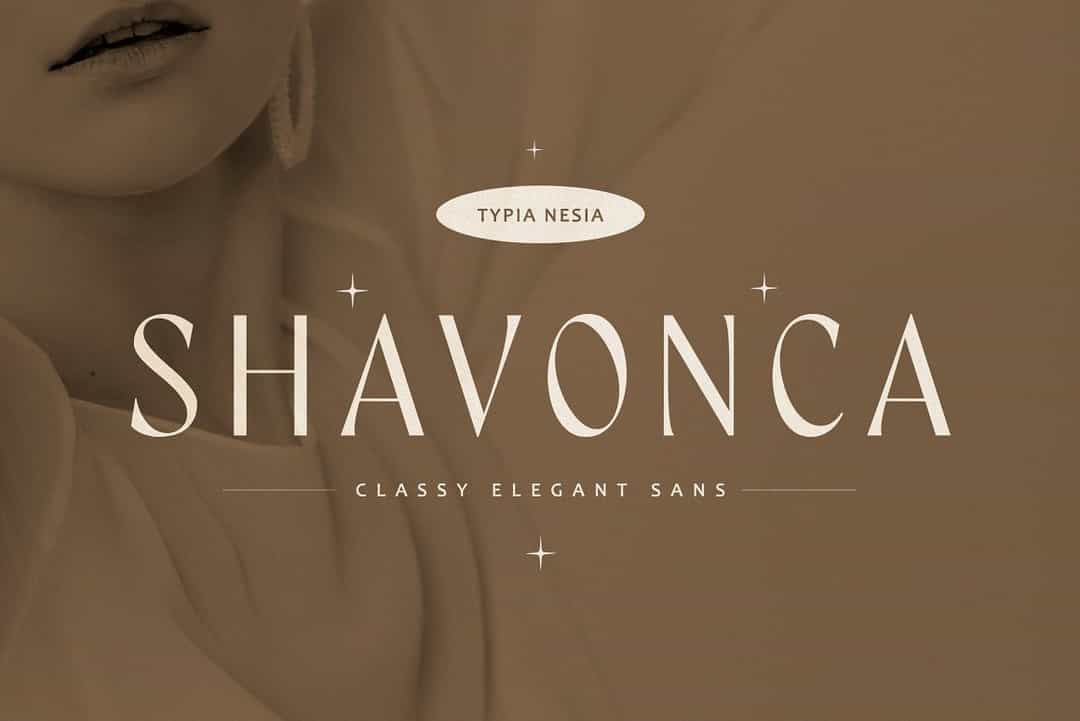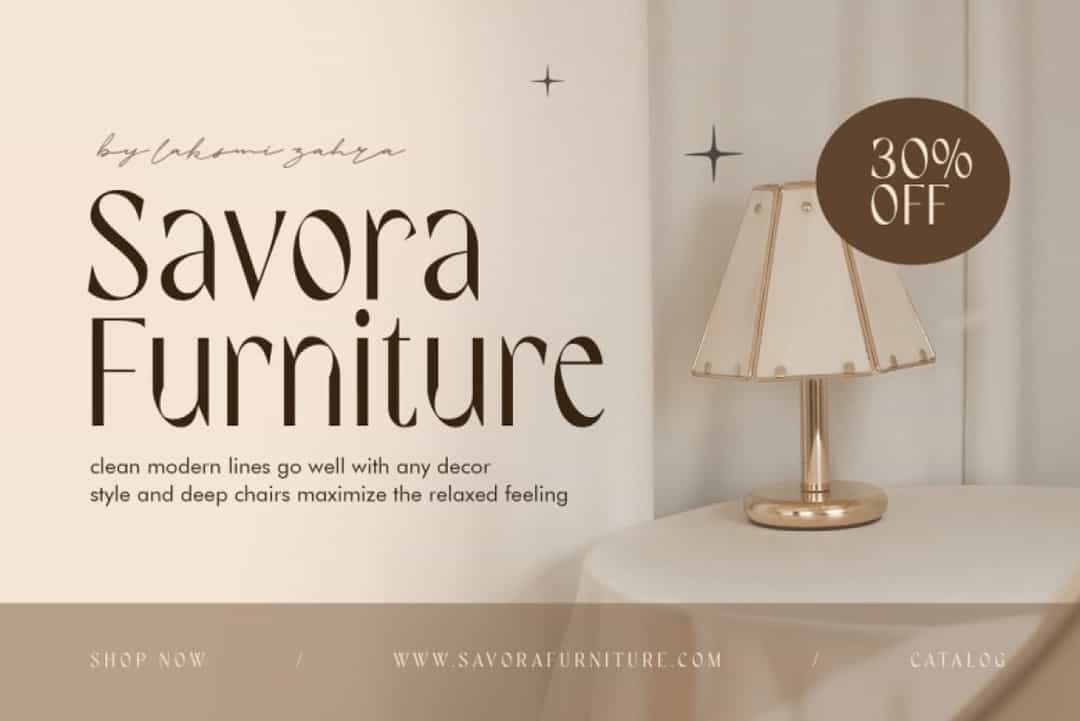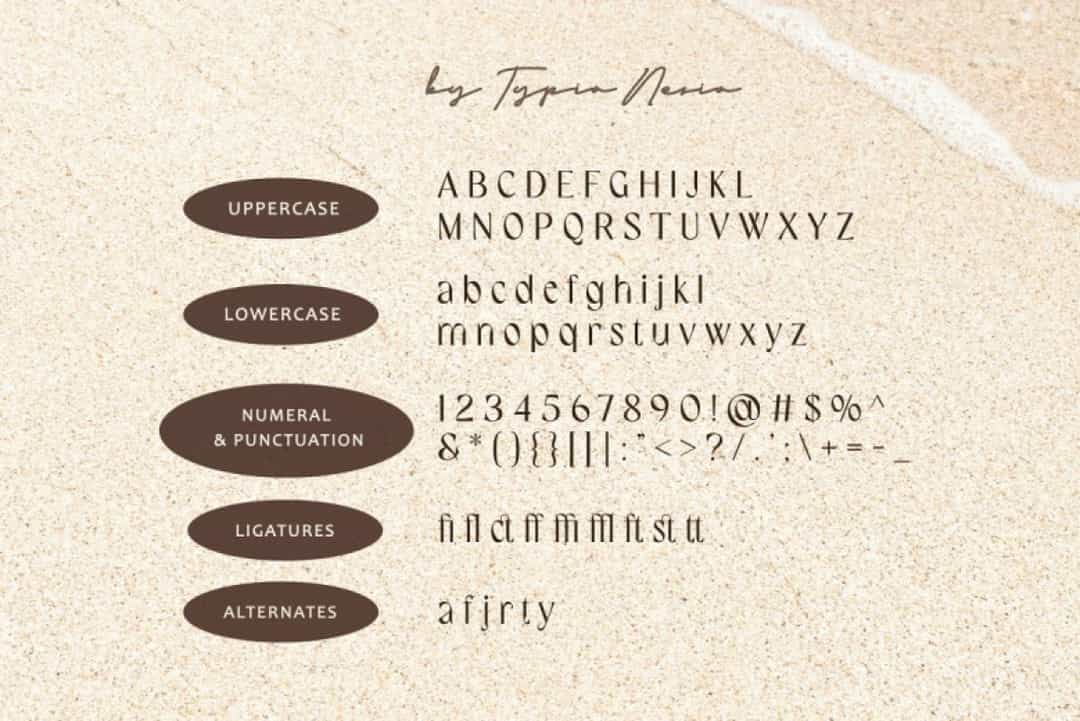
Shavonca Modern Beauty Elegant Classy Sans Serif – Elegant Vintage Traditional Light Font offers various alternatives and ligatures, so that it can be combined with other fonts for stunning typographic effects.